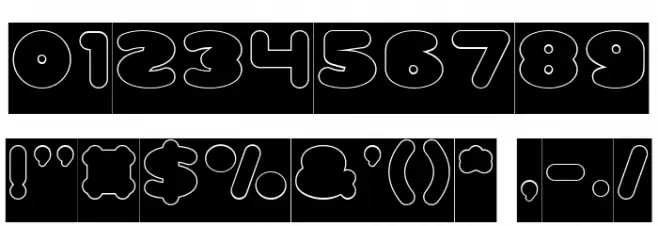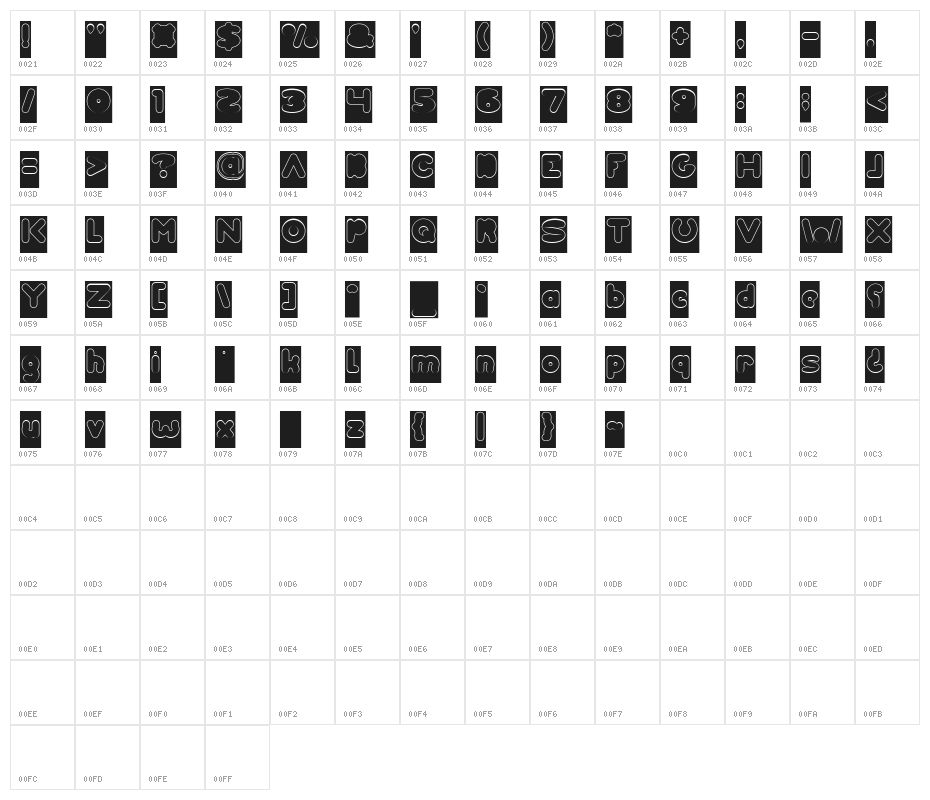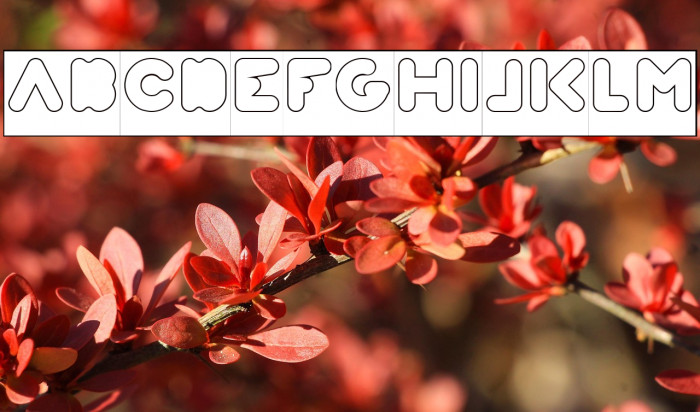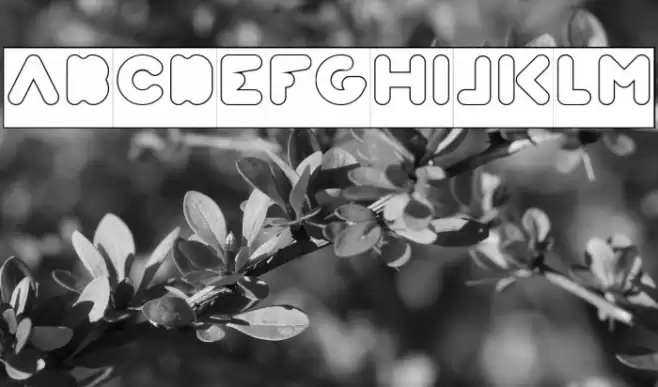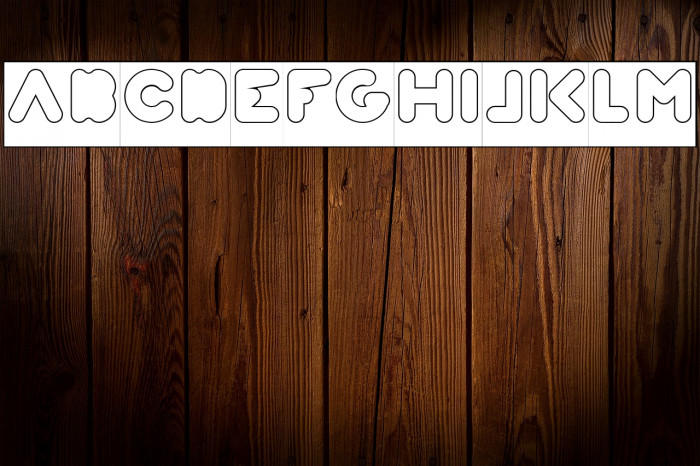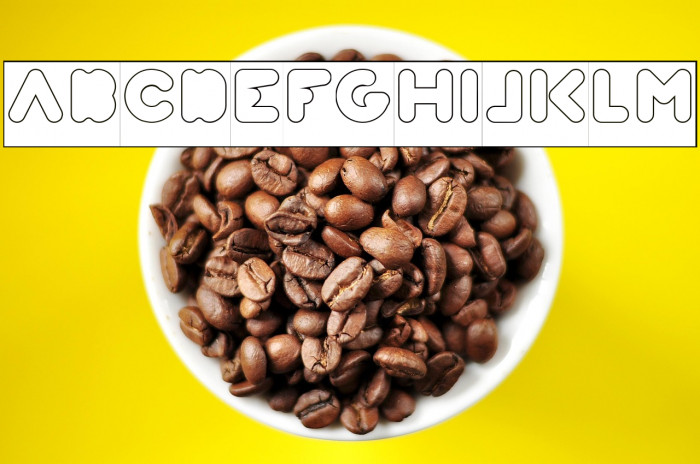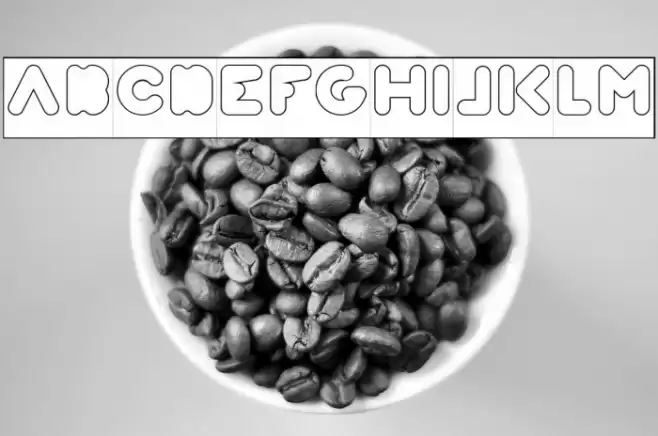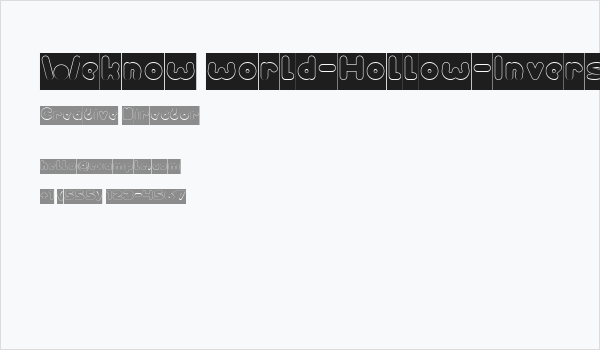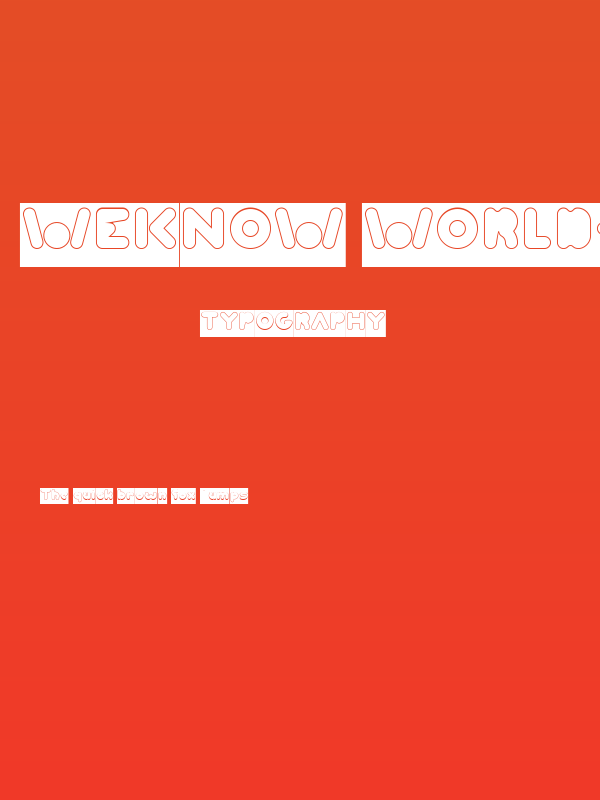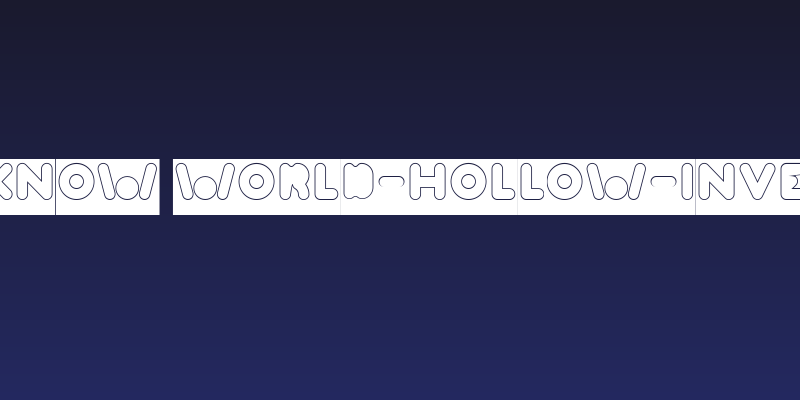
Weknow world-Hollow-Inverse Font
Weknow world-Hollow-Inverse Description
This font features a playful and bold hollow design, with each character outlined and filled with a contrasting background. The letters are rounded and have a bubbly appearance, giving them a friendly and approachable feel. The uppercase and lowercase letters maintain a consistent style, while the numbers and special characters complement the overall aesthetic. The font's unique hollow effect makes it stand out, ideal for designs that require a touch of whimsy and creativity. Its boldness ensures visibility, making it suitable for various display purposes.